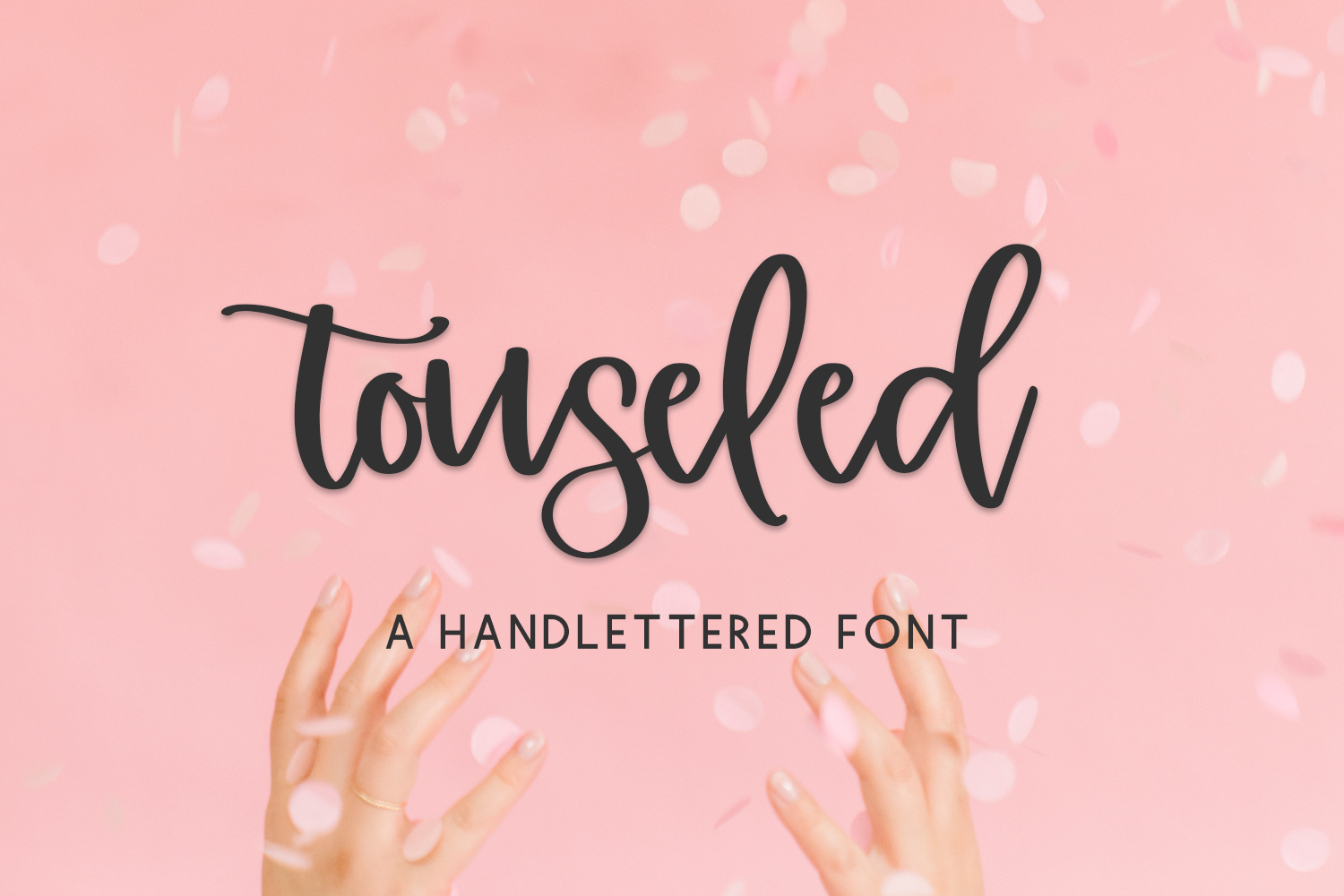
Touseled Script
Introducing Touseled Script, a bouncy calligraphy script. This chic, stylish font features a casual and effortless look.
- 34 lowercase alternate characters
- 6 ligatures - ar, arr, er, rr, tt, wh